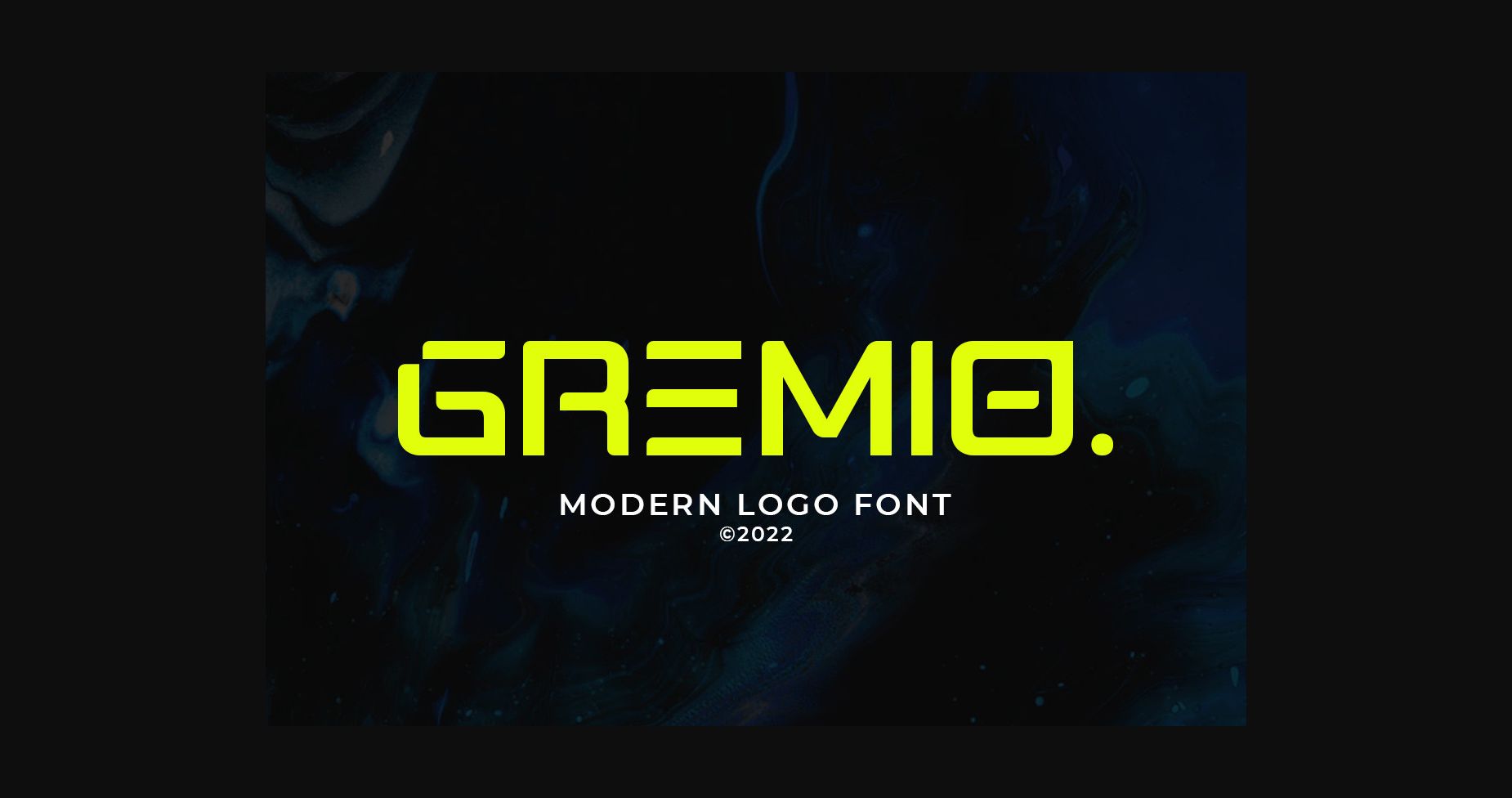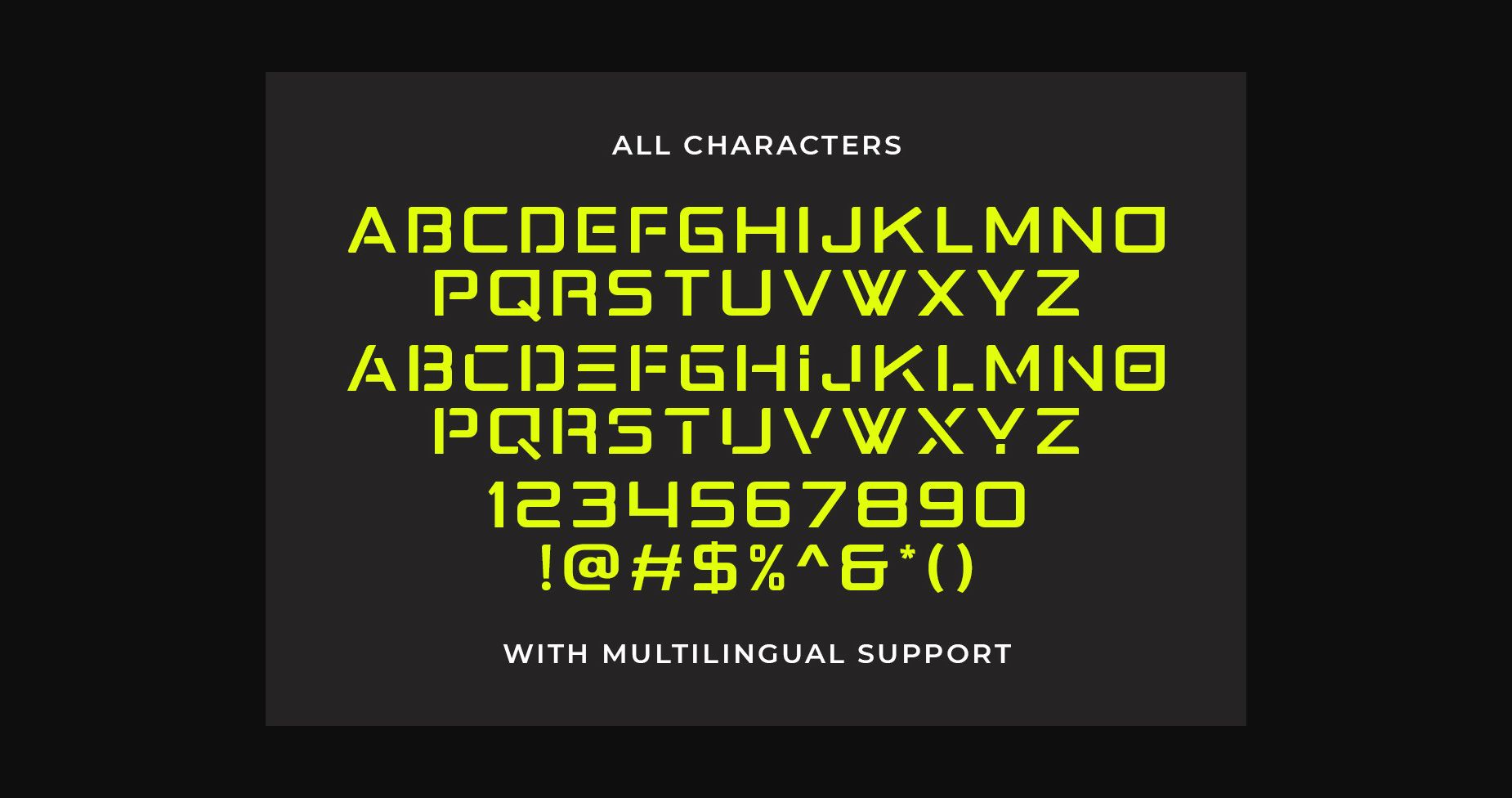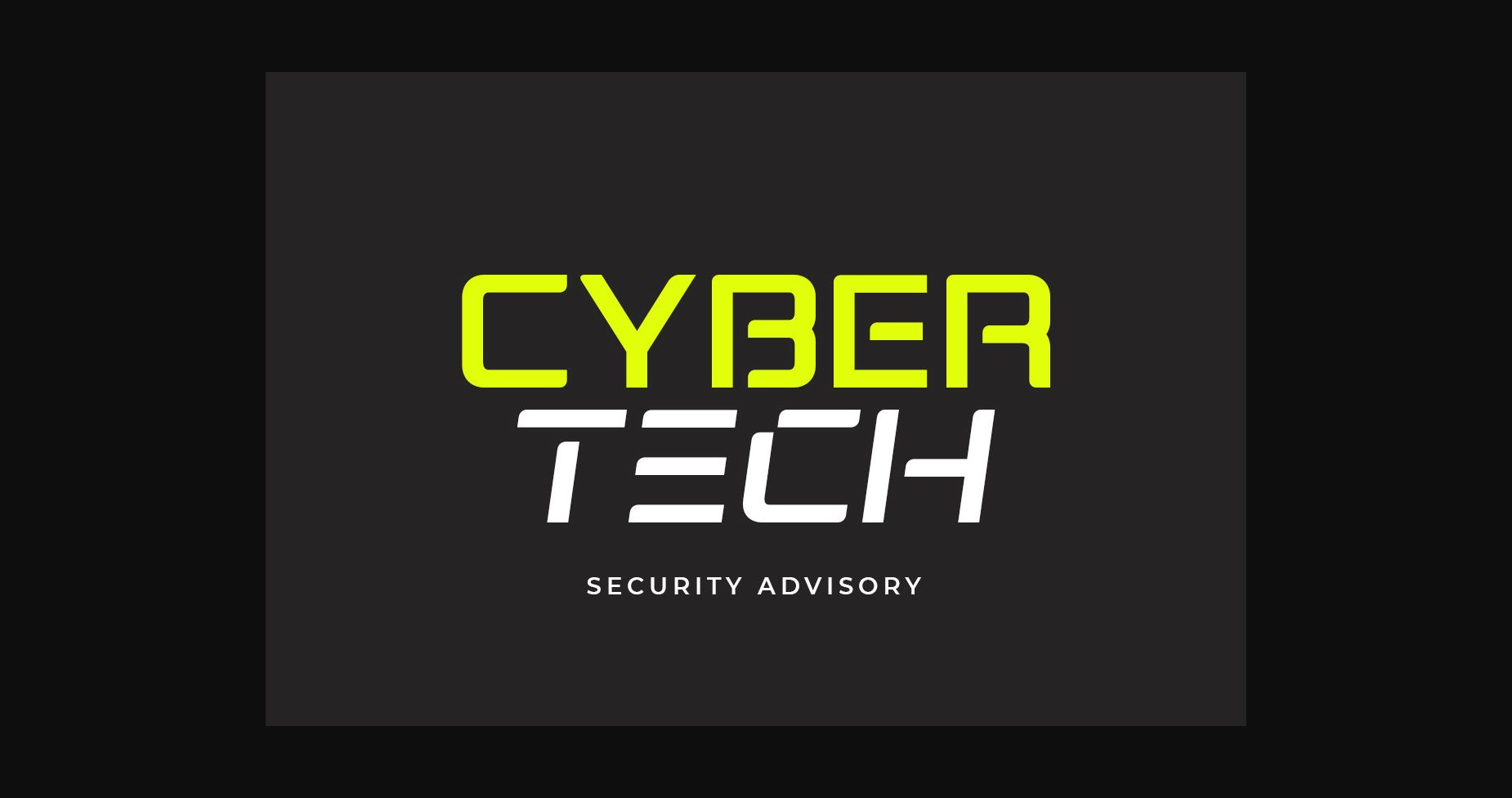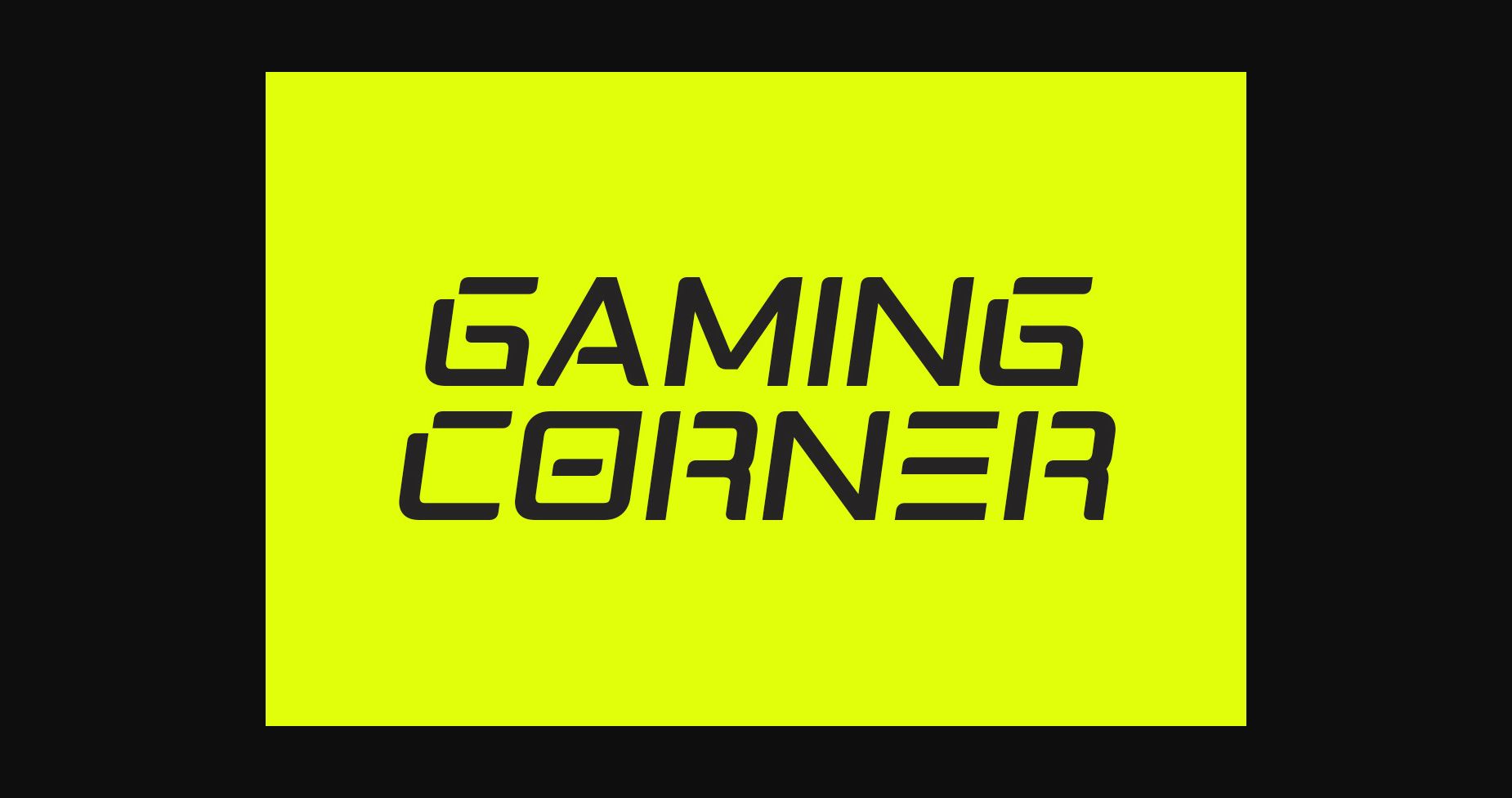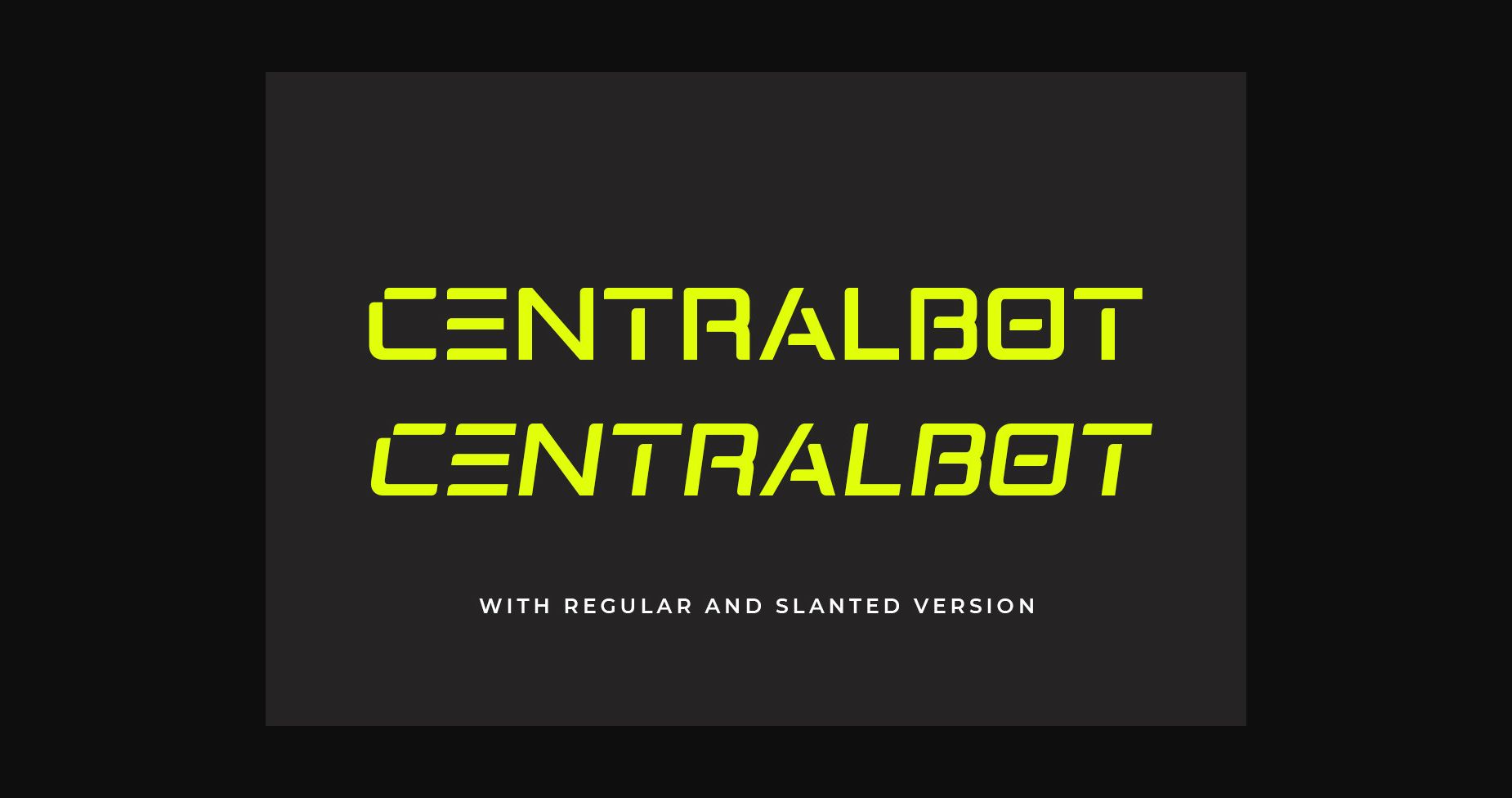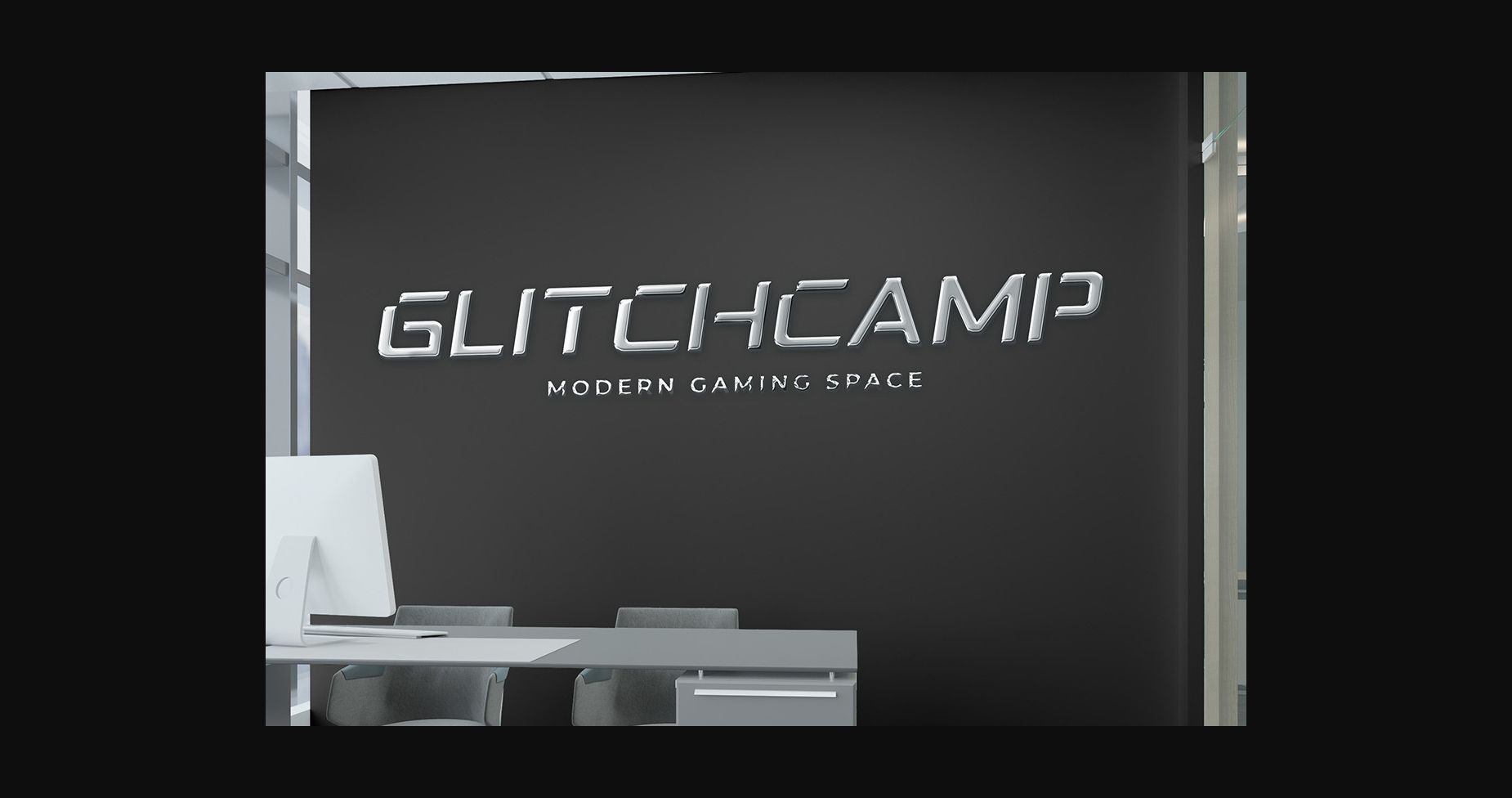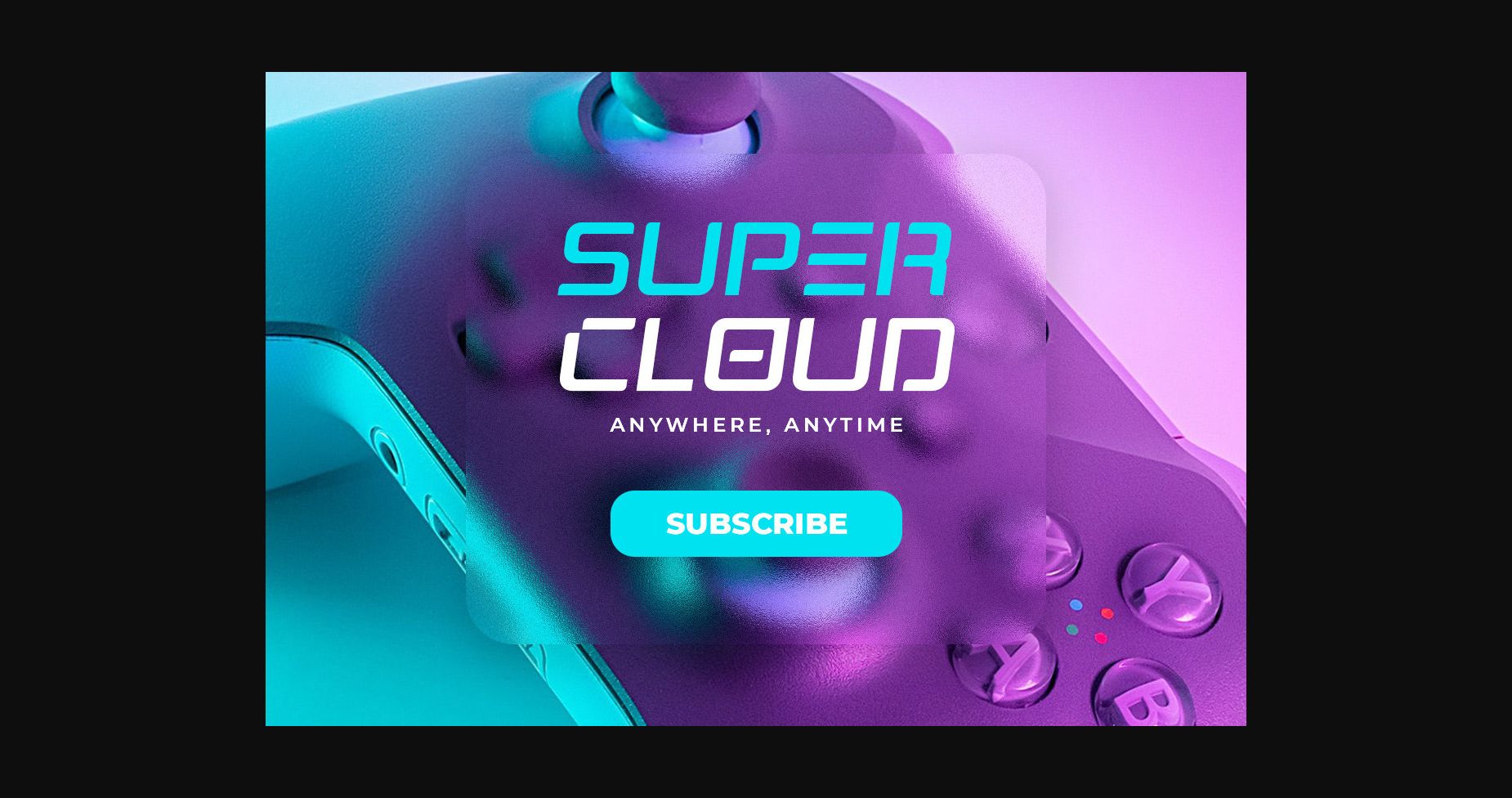
Gremio is a modern sans serif font made to fulfill your modern logo needs! Simply mix and match the characters to make an instant modern logo look with ease!